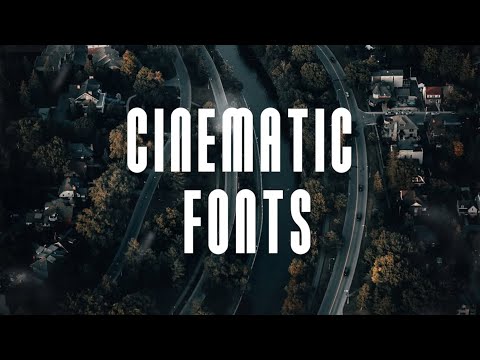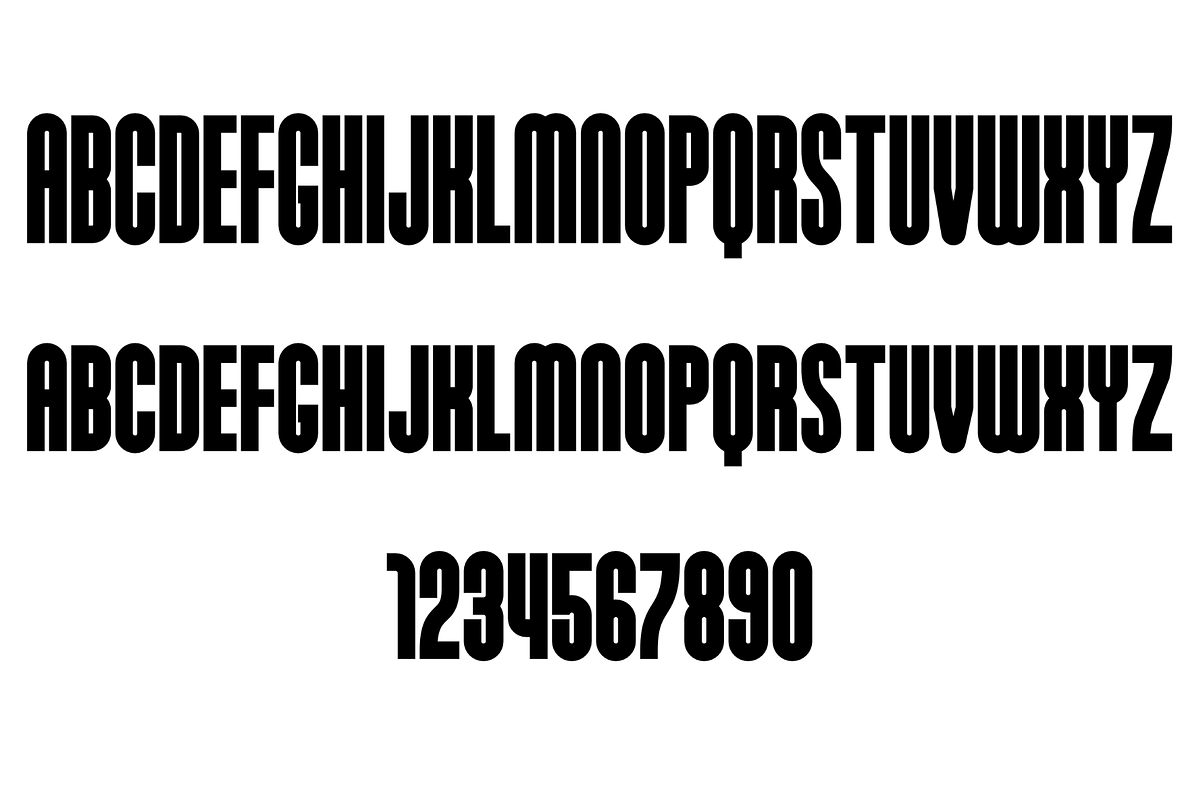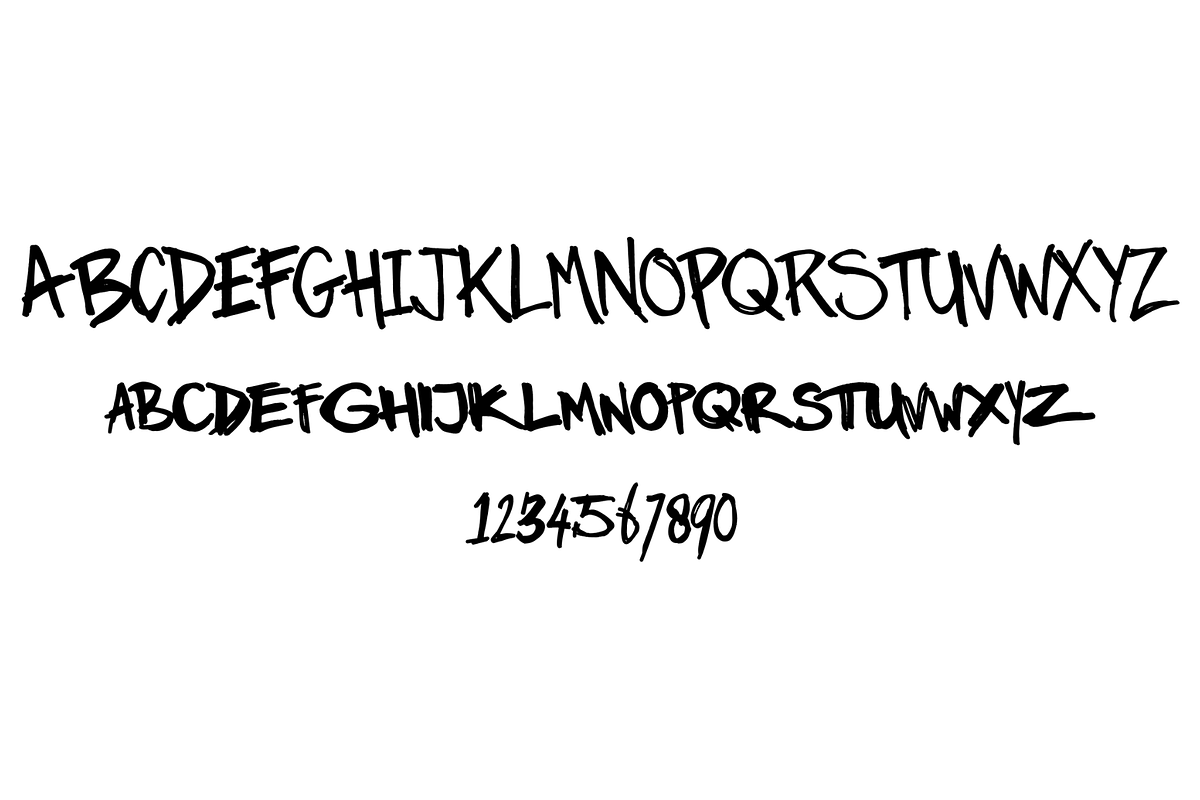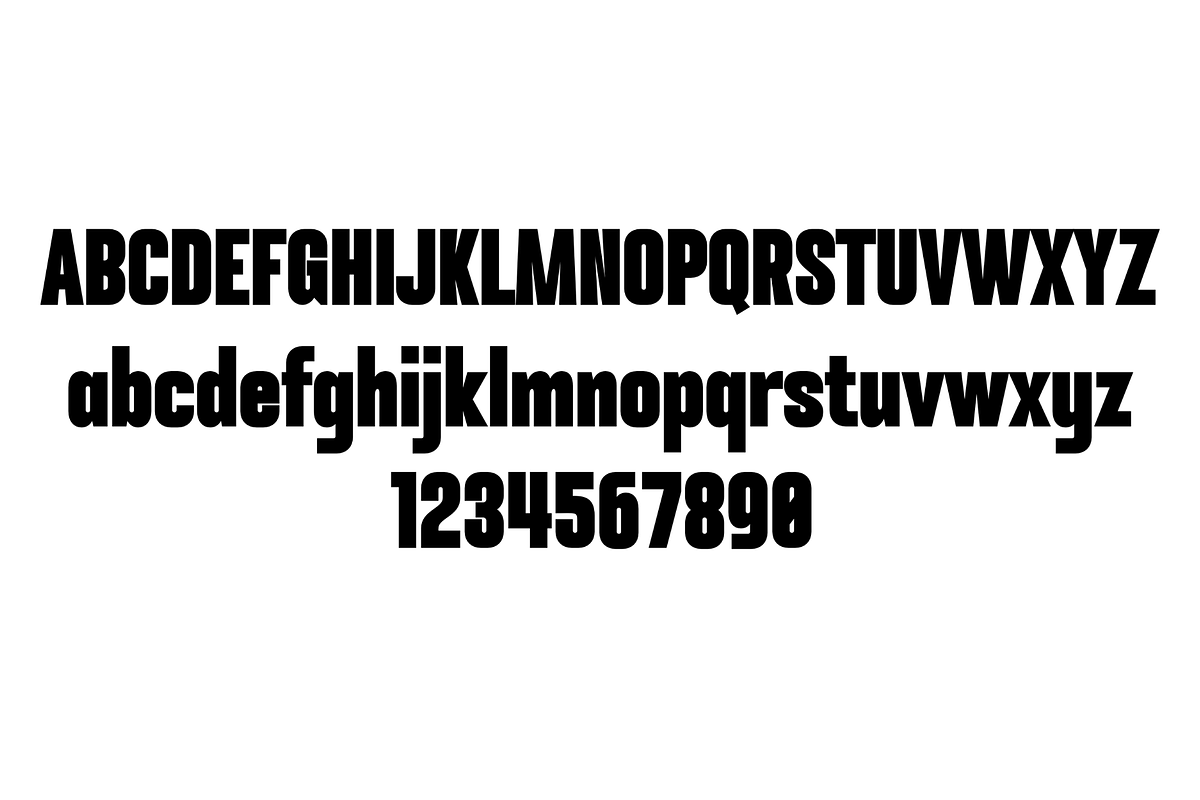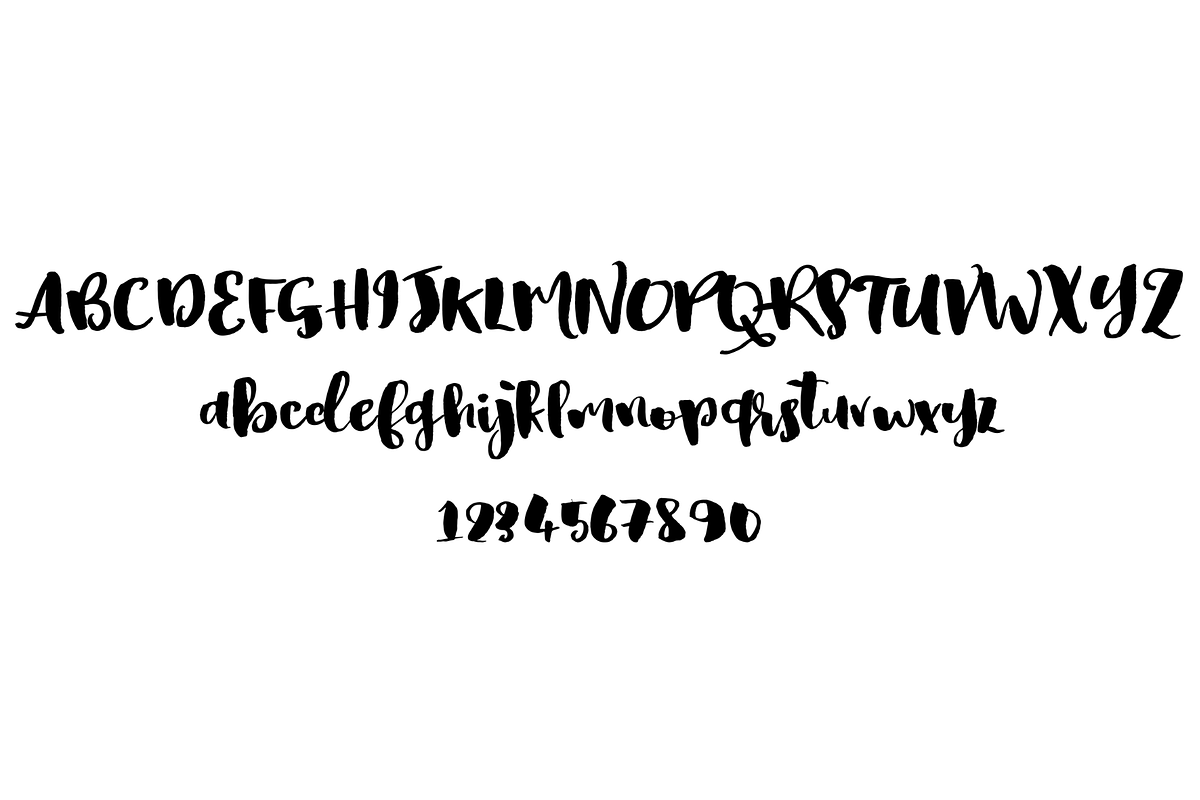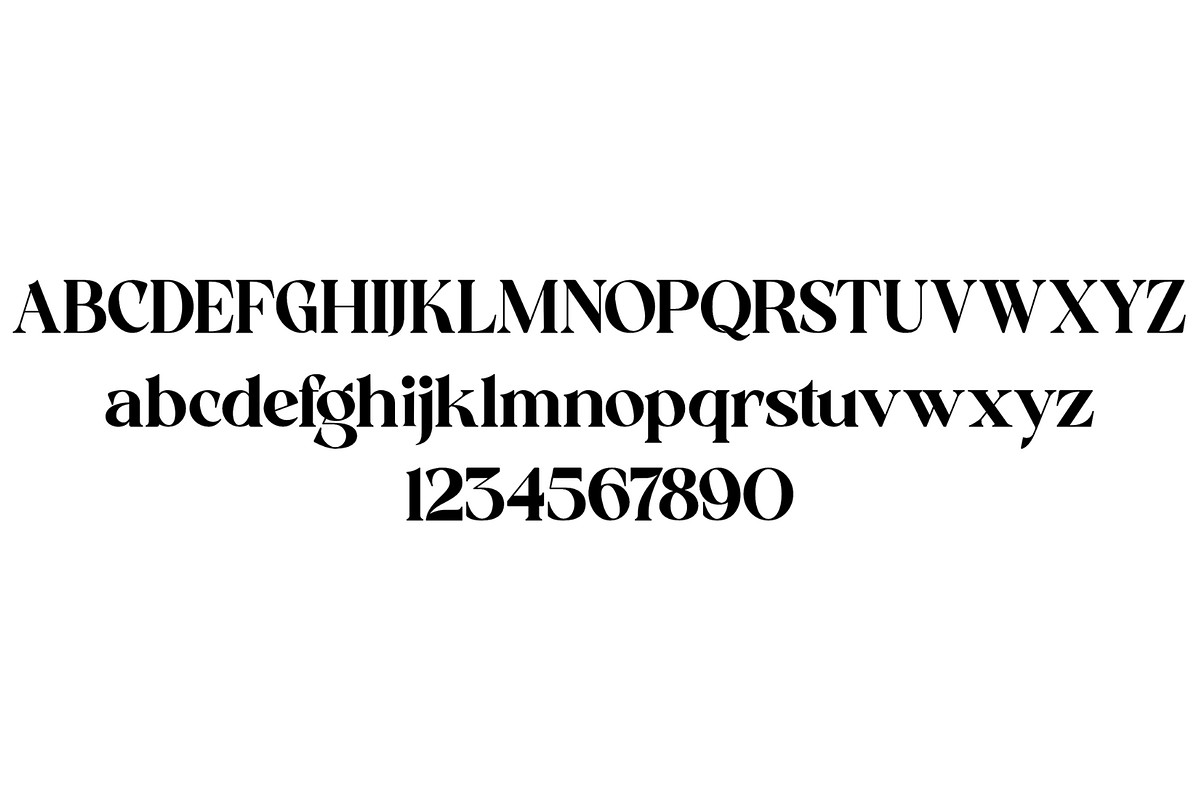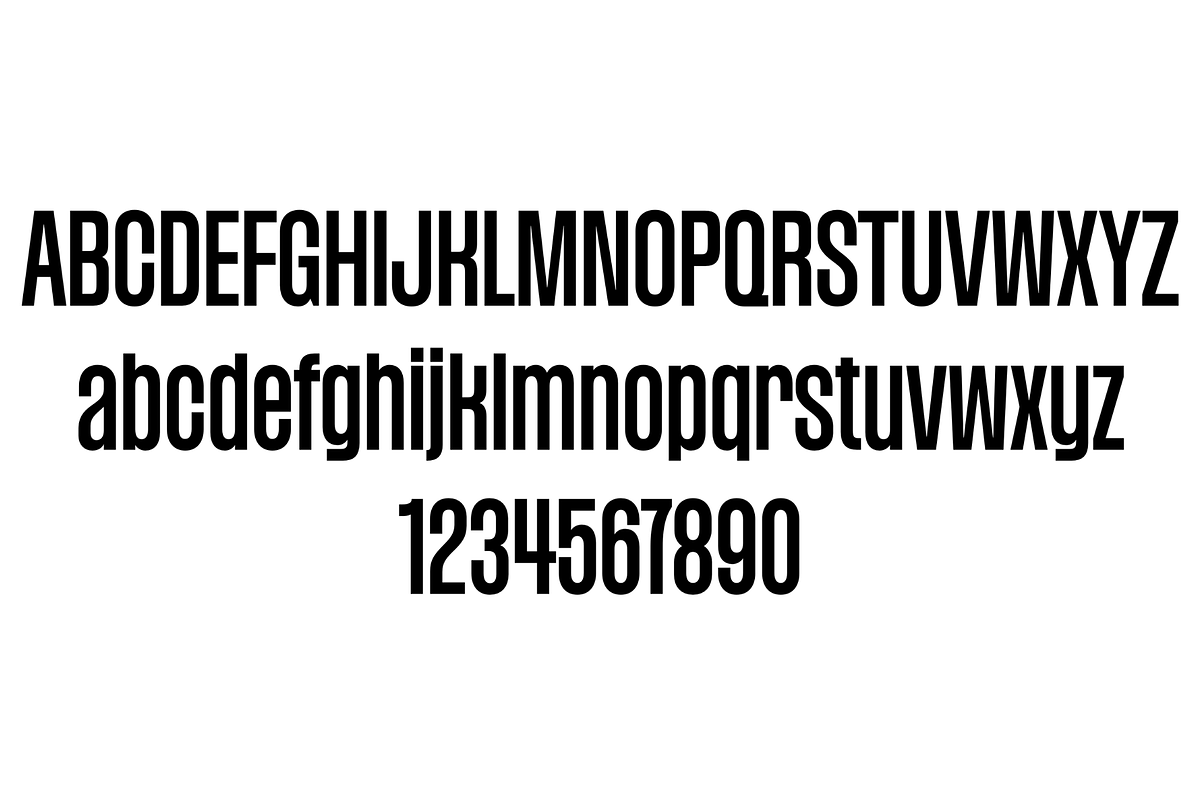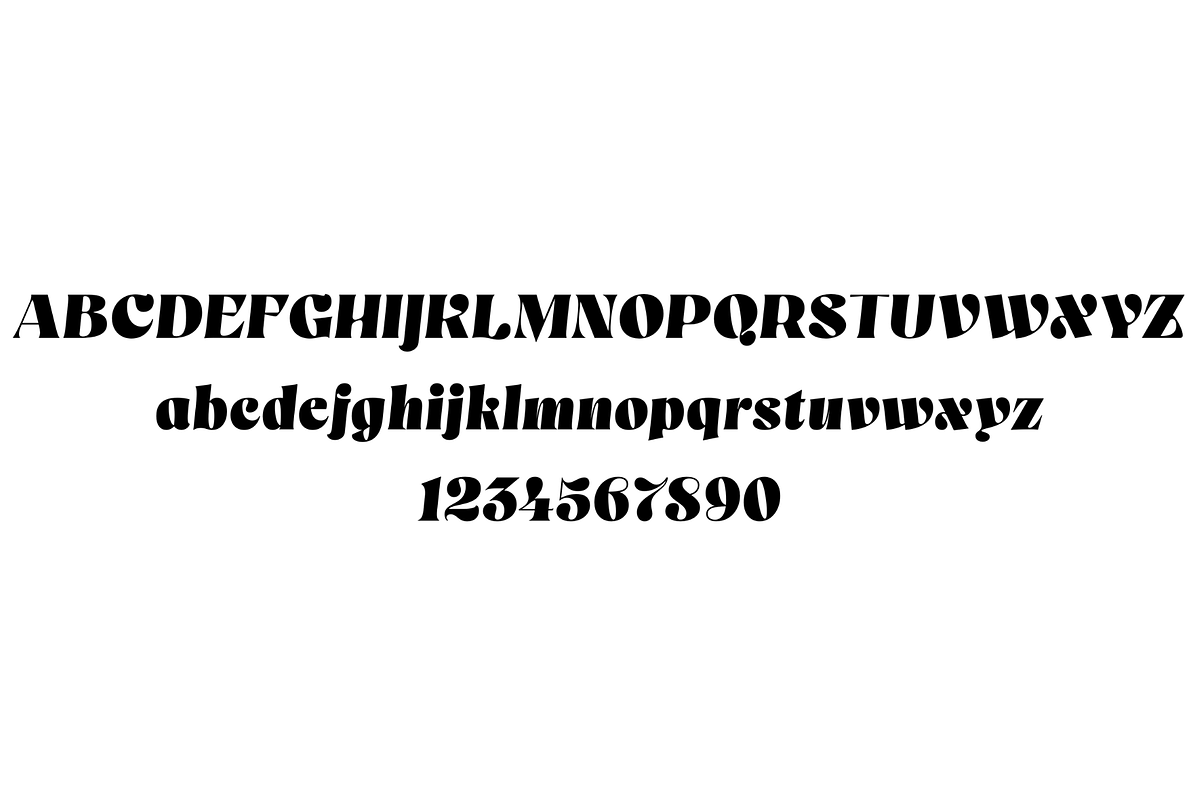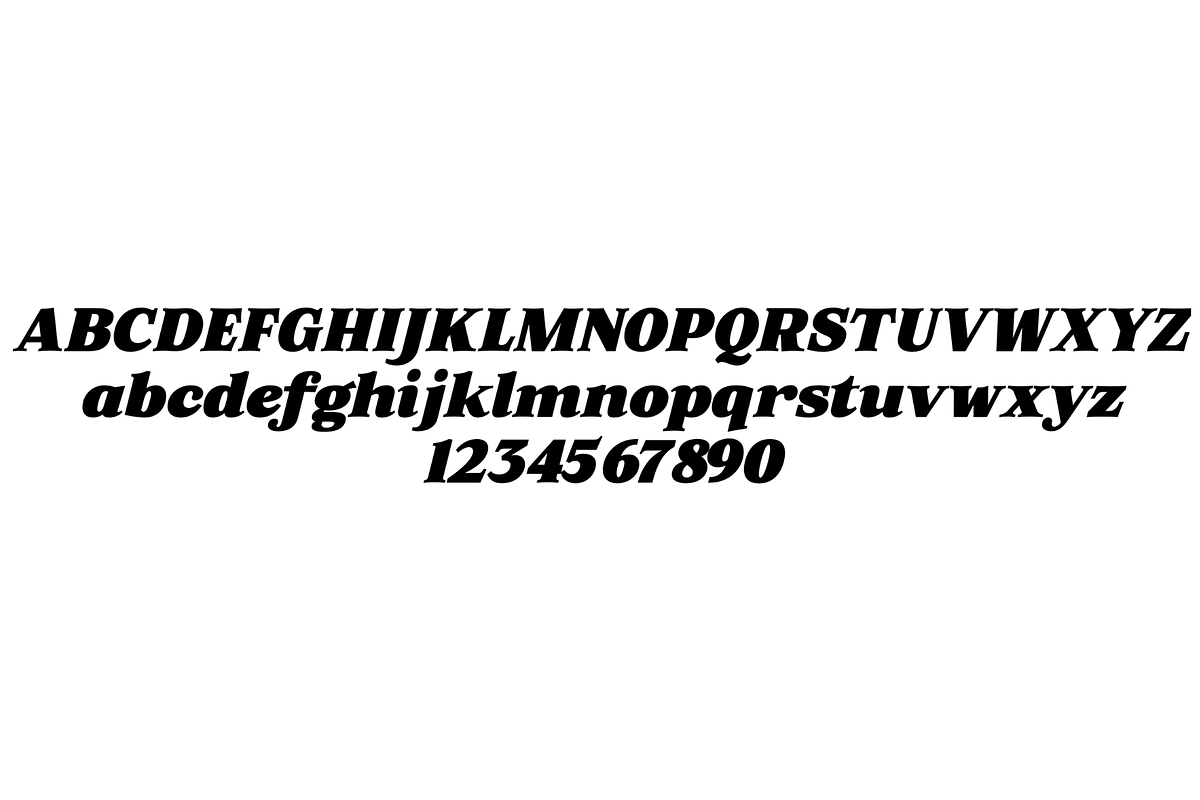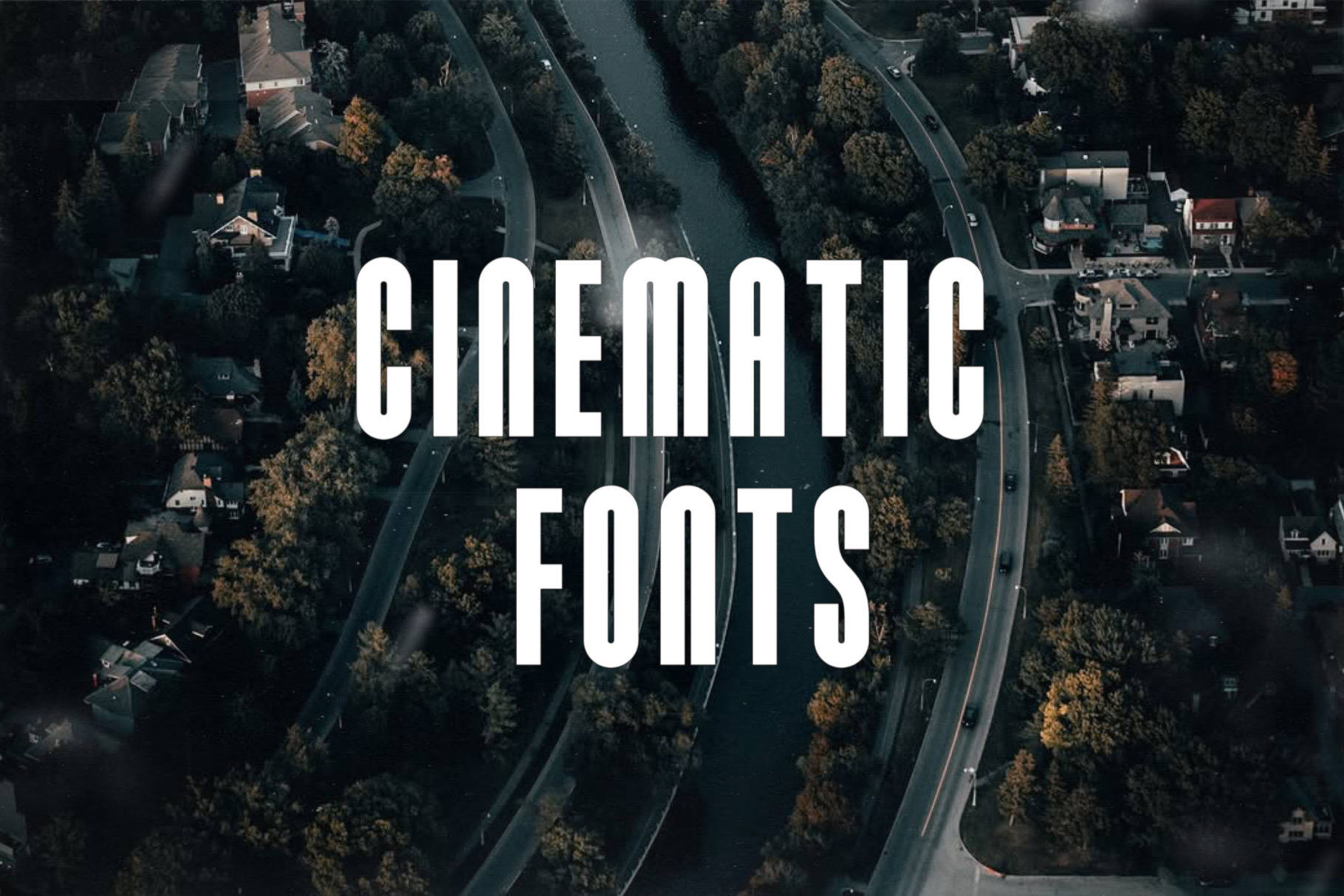
10 Cinematic Font Pack
A curated cinematic font collection featuring 10 unique typefaces — from bold modern styles to elegant calligraphy and nostalgic retro designs. Perfect for posters, YouTube titles, branding, social media, and cinematic projects.
Bring your words to life with this 10-font cinematic bundle. Each font is designed with a cinematic feel, blending bold strokes, elegant scripts, and retro-inspired lettering. Whether you’re creating a movie poster, YouTube intro, fashion brand, or editorial design, this pack gives you the tools to make your typography stand out.
- Styles: Modern, Bold, Retro, Calligraphy, Decorative
✨ Perfect For:
- Movie-style posters & cinematic titles
- YouTube intros & video editing
- Branding, logos & packaging design
- Invitations, social media graphics, and more